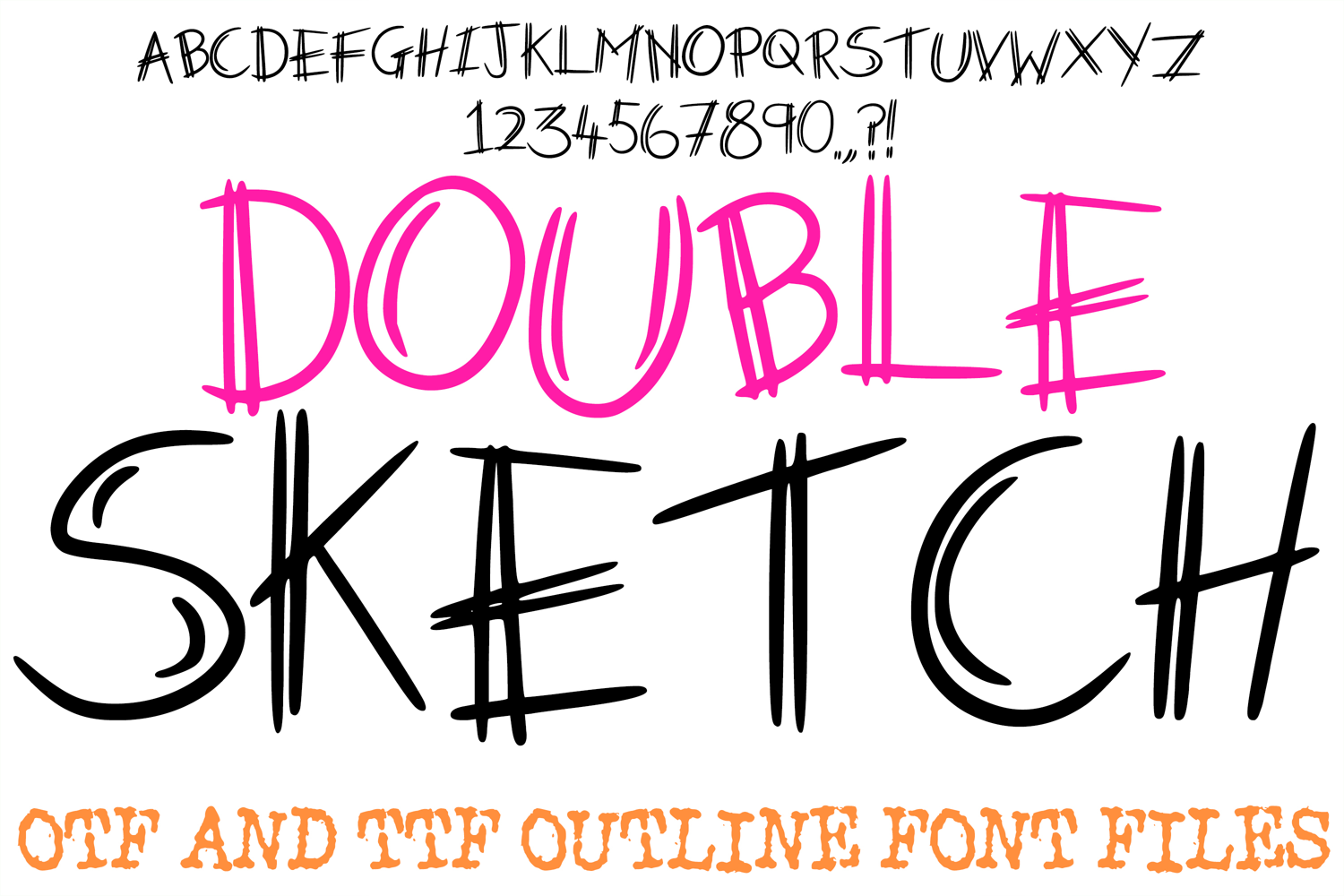
The Double Sketch Font is a light, artistic display typeface featuring a unique twin-line construction that mimics the look of a rapid hand-drawn draft. Characterized by its delicate, parallel strokes and organic imperfections, this font is a premier choice for designers working on architectural sketches, creative planning journals, minimal branding, and sophisticated social media overlays.
The design captures a raw, "work-in-progress" energy, where every character feels like it was etched with a fine-point pen. Whether you are building an identity for an interior design firm or creating elegant stationery for a boutique event, this font provides a handcrafted, professional aesthetic that is both modern and approachable.
Why Your Designs Will Stand Out
Parallel Stroke Detail: The double-line effect adds a subtle layer of depth and technical flair to every letter and number.
Minimalist Aesthetic: The thin, clean lines ensure that your text remains elegant and airy, preventing designs from feeling overcrowded.
Hand-Drawn Authenticity: Slight variations in line length and curves provide a tactile, human quality that adds a layer of personality to digital projects.
High-Versatility Style: Perfectly tailored for projects that require a sophisticated yet casual "pencil-on-paper" look—from engineering notes to artistic blog headers.